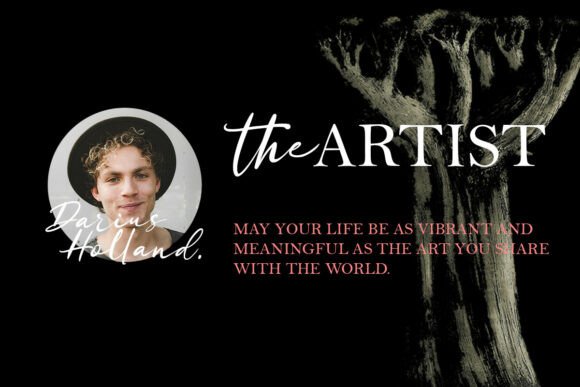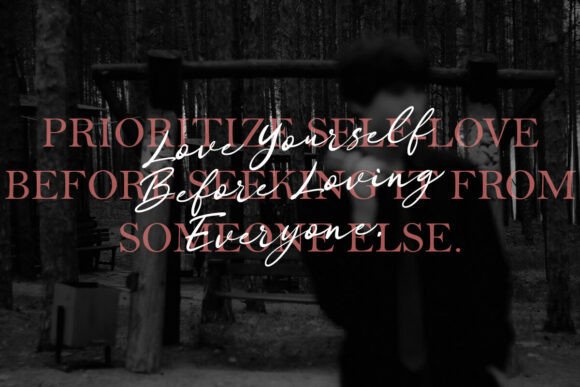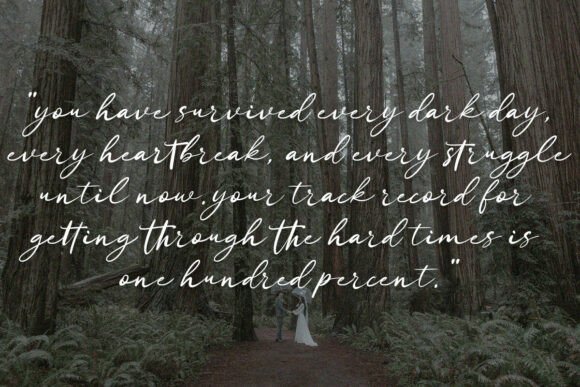
The Power of Father Days Font: Elevate Your Designs with Authenticity
Have you ever been in the middle of a design project, pouring your heart and soul into it, only to hit a roadblock when it comes to choosing the perfect font? I certainly have. It was a few years ago when I was working on a luxury branding project for a high-end fashion client. The brief was clear: create a sophisticated, premium look that exuded elegance and refinement. But, as I scrolled through font after font, nothing seemed quite right. That was until I stumbled upon Father Days Font.
This handwritten signature font has been a game-changer for me, and I’m excited to share its awesomeness with you. With its natural pen stroke feel, Father Days seamlessly blends organic flow with bold, sophisticated character. It’s the perfect choice for high-end branding, luxury logos, and editorial layouts.
What I Love About Father Days Font
So, what makes Father Days Font so special? Here are a few things that I absolutely love:
- ✨ Authentic feel: The font’s handwritten signature style gives it a personal, human touch that’s hard to find in digital fonts.
- ✅ Elegant curves: The sharp and elegant curves create a premium aesthetic that stands out in any composition.
- 💼 Versatility: Father Days works seamlessly across stationery, fashion branding, and personalized gift designs, offering a unique identity to every project.
- 📚 Timeless yet modern: The font’s style feels both classic and contemporary, making it perfect for a wide range of design applications.
While Father Days Font is an amazing addition to any design project, there are a few small quirks to be aware of:
- 🤔 Glyph limitations: As with any font, there may be limitations to the number of glyphs available. However, Father Days offers a robust set of characters to work with.
- ⚠️ Kerning adjustments: As with any font, you may need to make some manual kerning adjustments to ensure optimal spacing and readability.
The Story Behind Father Days Font
While the true story behind Father Days Font may be a mystery, it’s easy to imagine that it was created by a designer who wanted to capture the essence of a natural pen stroke. Perhaps they spent hours pouring over handwritten notes and signature styles, searching for the perfect blend of elegance and authenticity. Whatever the inspiration, the end result is a font that’s both timeless and modern.
| Font Name | Father Days Font |
| Author | Struggle Studio |
| What makes Father Days Font so special? | Father Days Font’s unique blend of organic flow and sophisticated character makes it perfect for high-end branding, luxury logos, and editorial layouts. |
| Is Father Days Font suitable for body text? | While Father Days Font is elegant and refined, it’s best suited for headlines, titles, and short paragraphs. For body text, a more traditional font may be more suitable. |